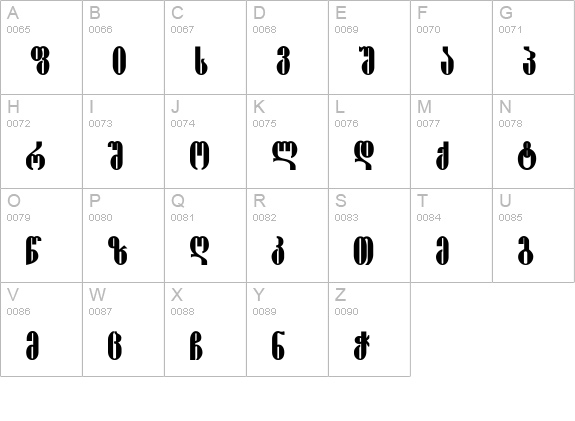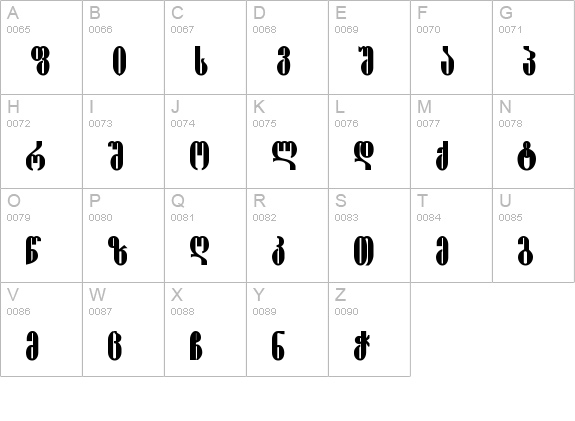
Pakizy-ITV Bold Font Details
Pakizy-ITV Bold is a strong, high-contrast variant in the Pakizy typeface family \xE2\x80\x94 well suited to headlines, attention-grabbing titles, and strong calls-to-action.
Pakizy-ITV Bold font is a striking and attention-grabbing typeface that exudes confidence and boldness. Its strong and powerful design makes it perfect for various creative projects, such as headlines, posters, logos, and branding materials. With its sharp and distinct letterforms, Pakizy-ITV Bold demands attention and adds a touch of modernity to any design. The thick strokes and clean lines create a sense of professionalism and sophistication, making it an excellent choice for both digital and print media. One of the most exciting aspects of Pakizy-ITV Bold is that it is freely available to download at FontsMarket.com. This means that designers and enthusiasts can access this impressive font without any cost, allowing them to elevate their projects without breaking the bank. Whether you are a seasoned designer or just starting, Pakizy-ITV Bold font is a versatile and powerful tool that will enhance your creative endeavors. Its bold and impactful presence will ensure that your message stands out and leaves a lasting impression on your audience. Download Pakizy-ITV Bold font for free at FontsMarket.com and unlock the potential to create stunning and eye-catching designs that will make a statement. Don't miss out on this incredible opportunity to add a touch of boldness and elegance to your next project.